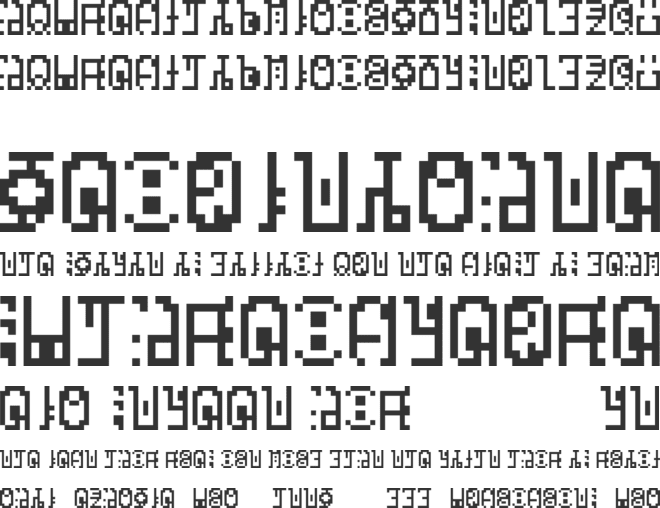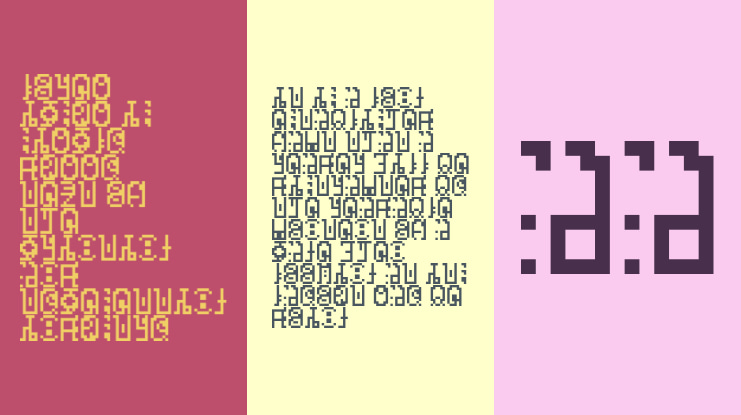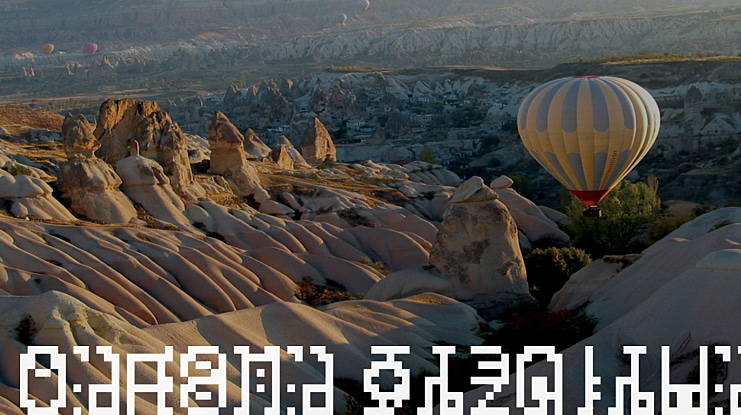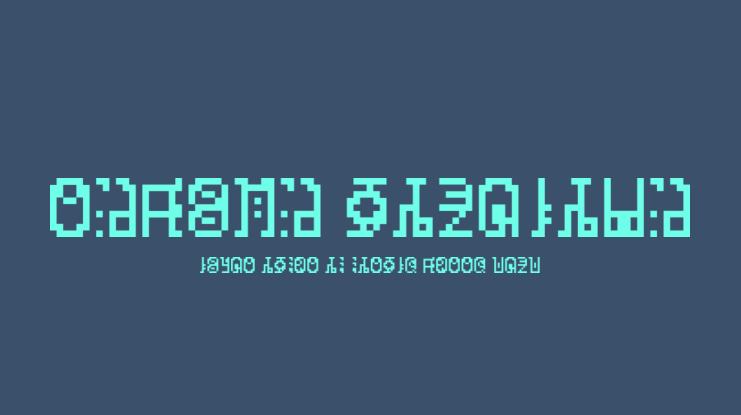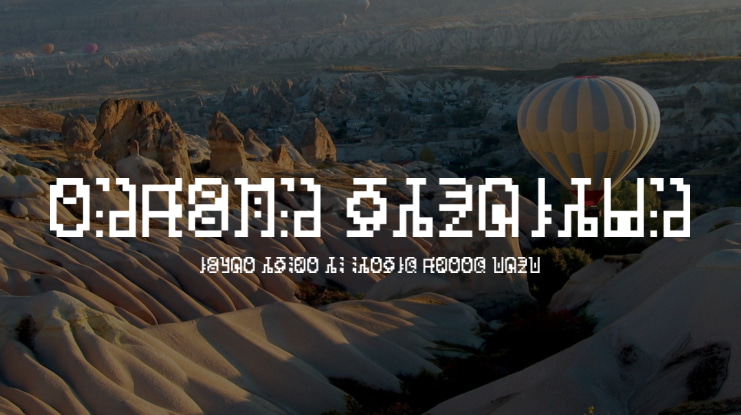
Madoka Pixelica Font
Madoka Pixelica is a remake of musical-based digital runes seen in an episode of Puella Magi Madoka Magica. Made with Fontstruct.